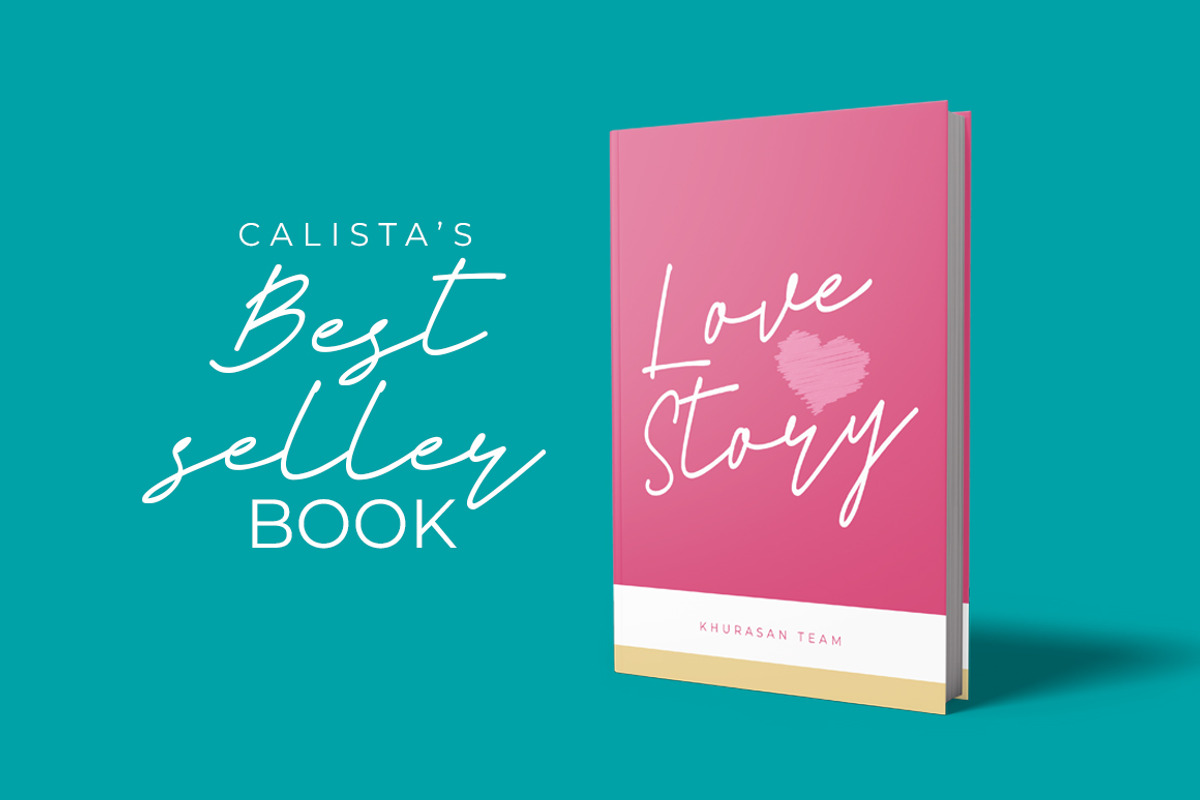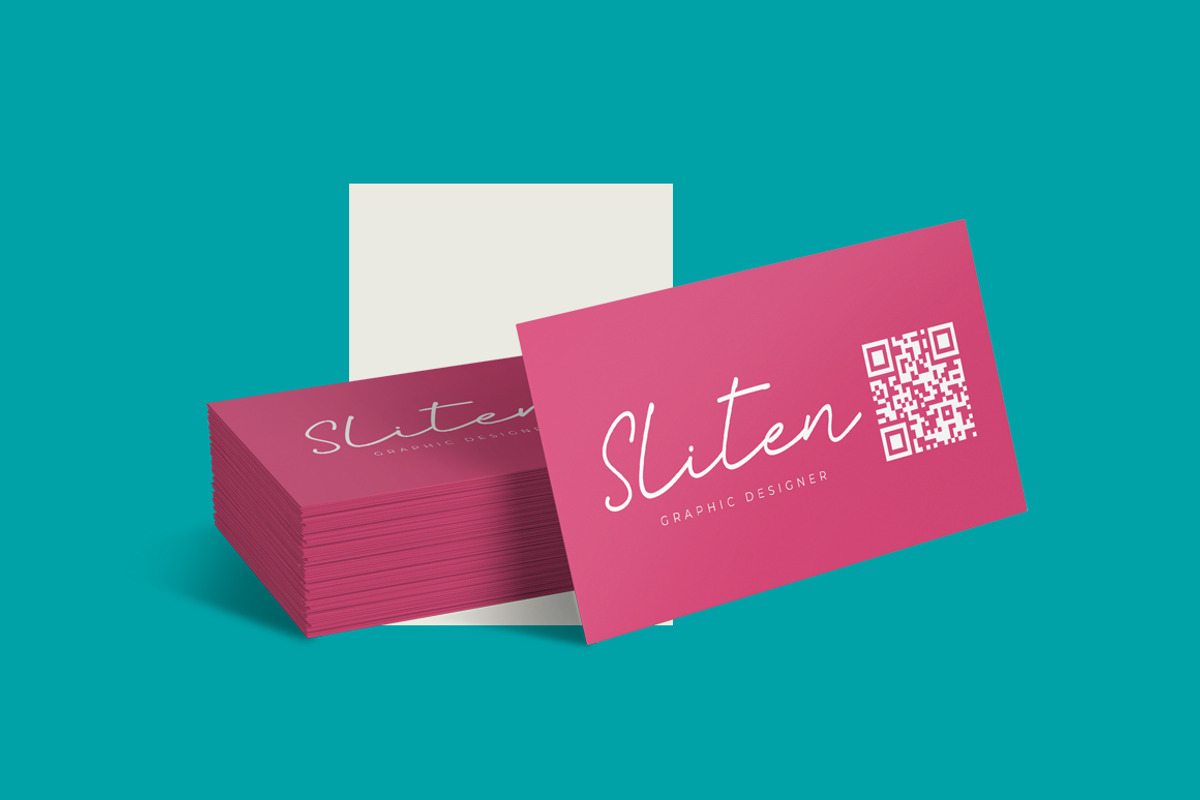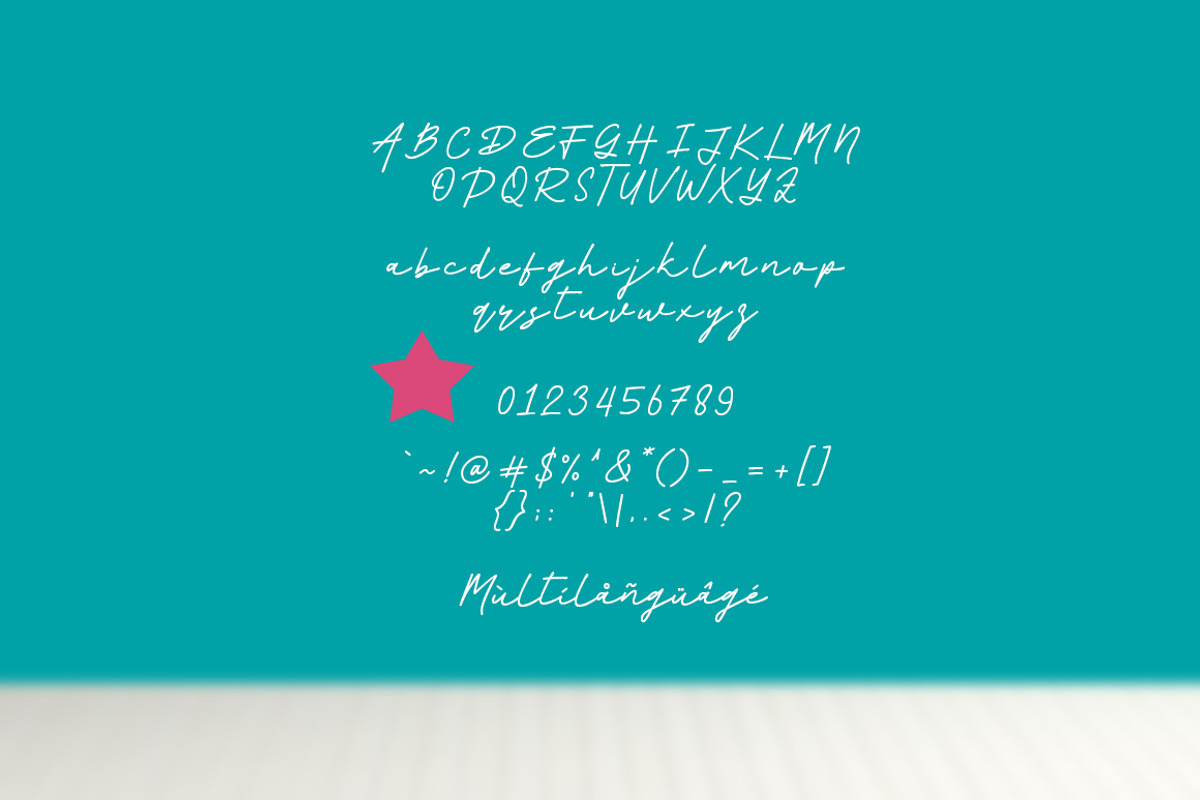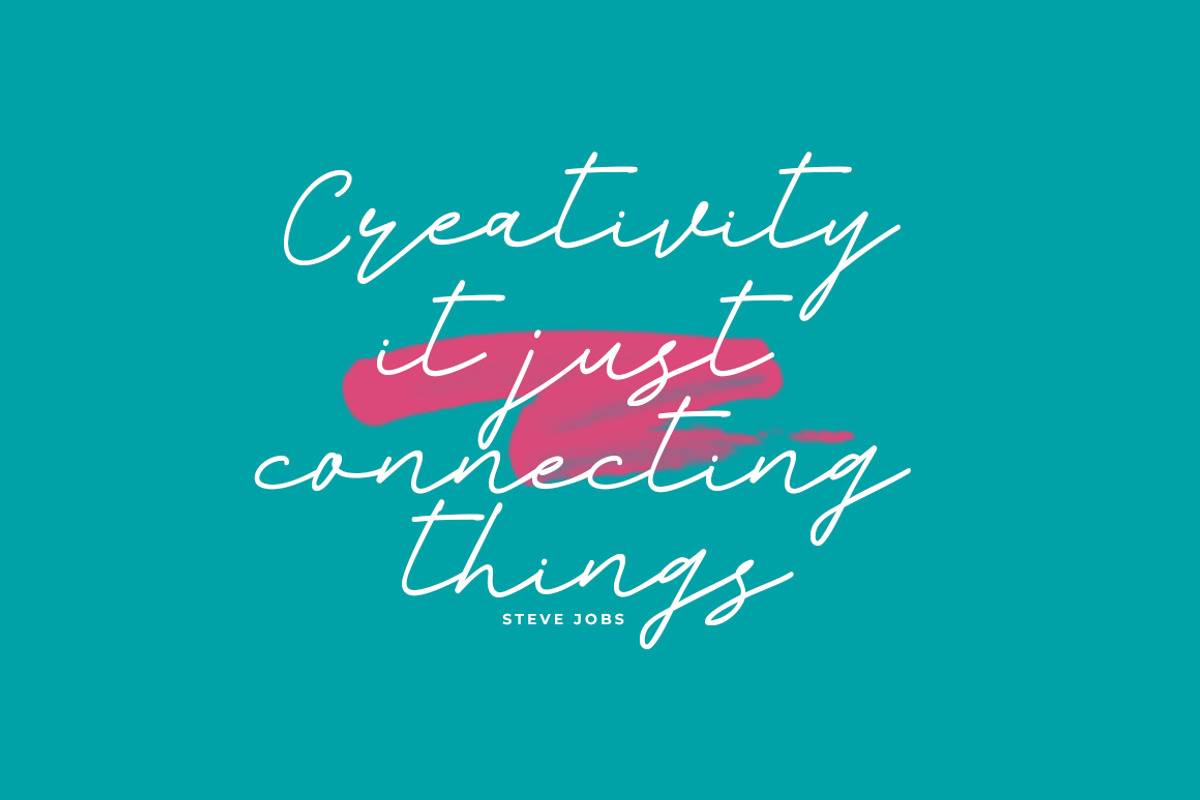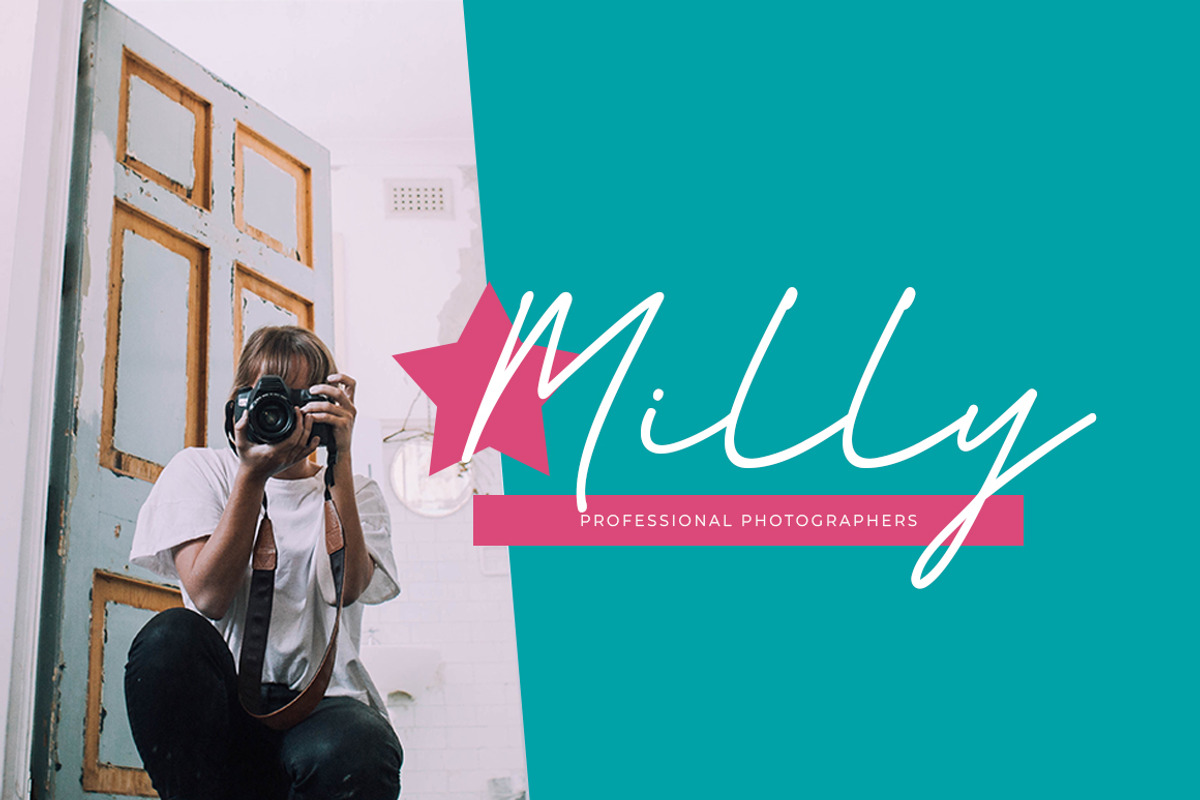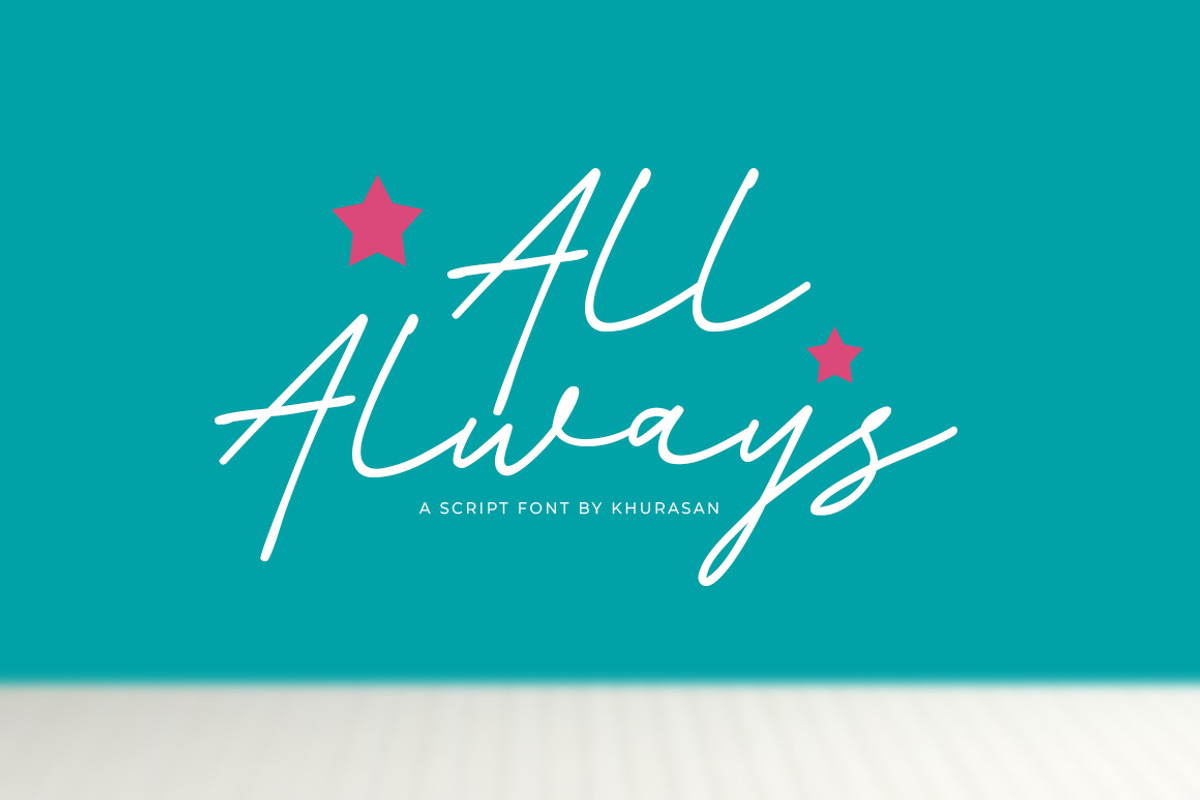
All Always
The All Always is a fresh script font, elegant and modern feel character set. The All Always font as well as multi-lingual support, uppercase, lowercase, numerals, & punctuation.